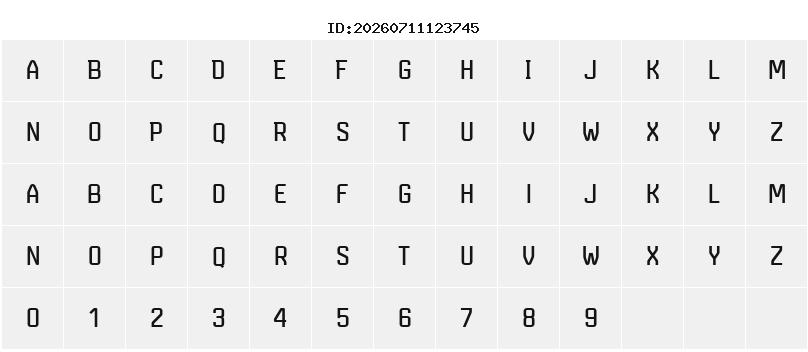
• Font Name: Marsmonster Demo
• Full Font Name: Marsmonster Demo Regular
• Designer: Affenprinz Belmondo
• Manufacturer: Büro Sequenz
About Marsmonster Demo.ttf
Marsmonster Demo.ttf is a modern, elegant sans-serif font designed for ultimate readability and visual harmony. Perfect for branding, headlines, web design, and print materials.